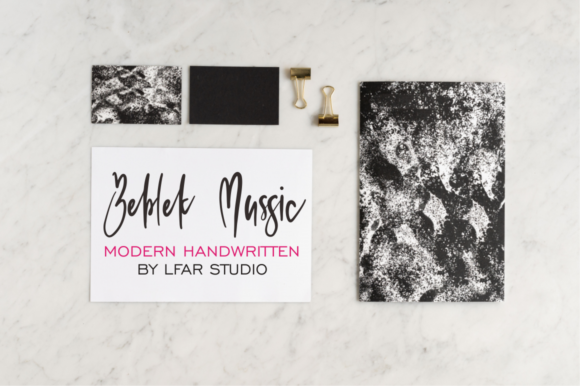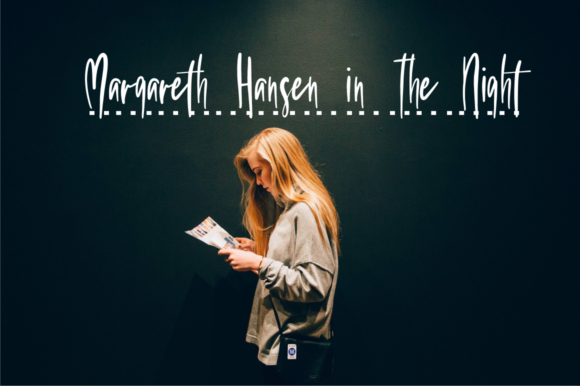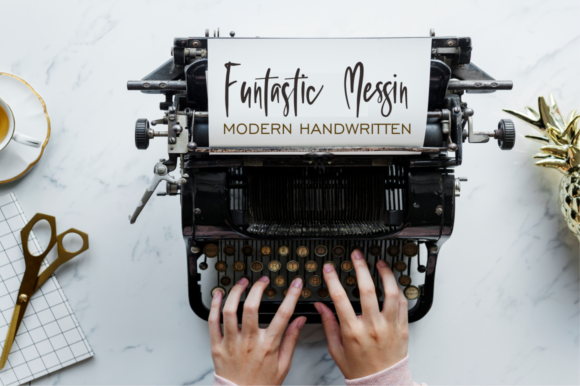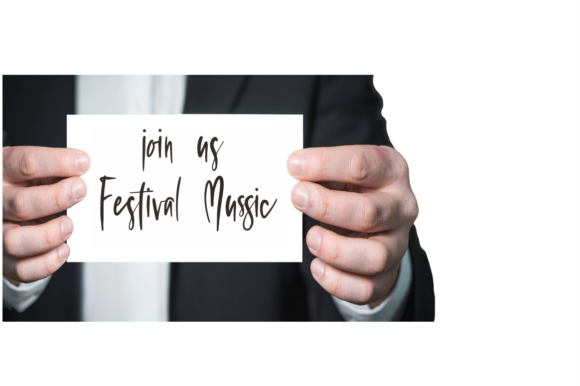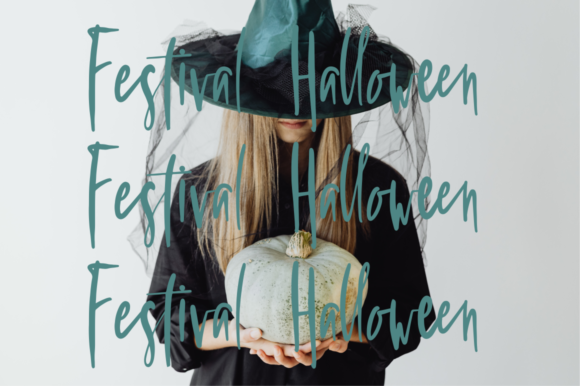
About Beblek Mussic Font
Beblek Mussic is a handwritten font with a dark and sharp impression. It has amazing glyphs, swash alternates (ending), and ligatures. Its sweet and full of life style makes this font a wonderful choice for brightening up your designs.